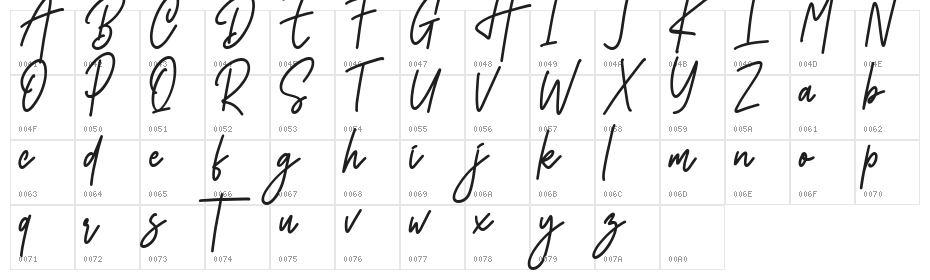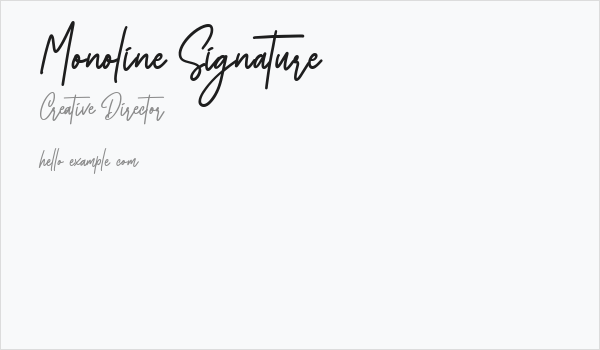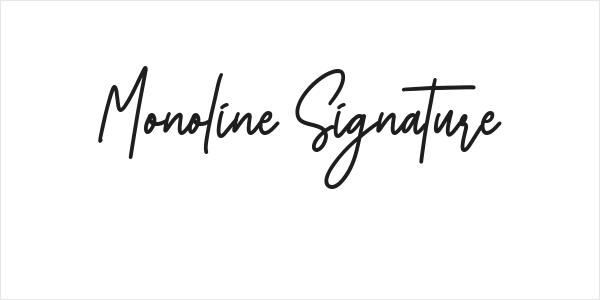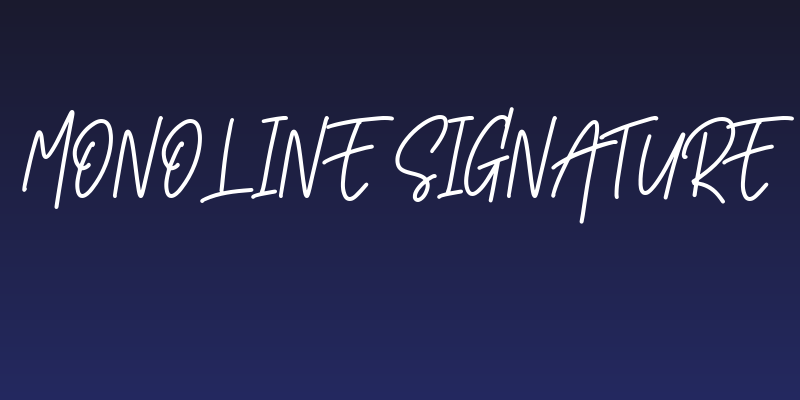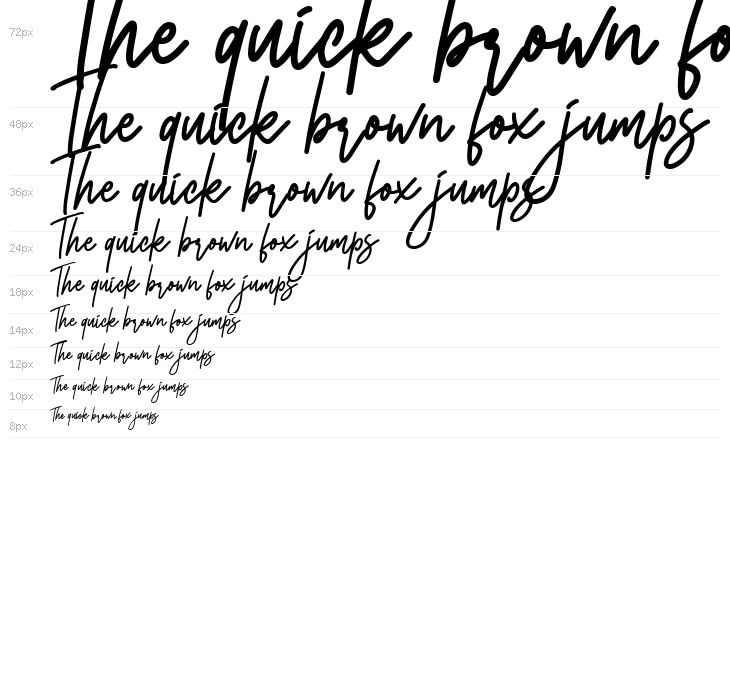
Monoline Signature Font
Monoline Signature Description
This font features a monoline signature style with a fluid, handwritten appearance. The uppercase letters are elegantly crafted with a consistent stroke width, giving a sense of sophistication and modernity. The lowercase letters maintain a smooth, cursive flow, enhancing the font's organic feel. The numerals and special characters are designed to complement the overall aesthetic, ensuring versatility across various applications. Its clean lines and balanced proportions make it suitable for both digital and print media, offering a contemporary yet timeless appeal.
Use CaseLogos, Invitations, Branding
Proposed ProjectsIdeal for branding, invitations, logos, and personal signatures.